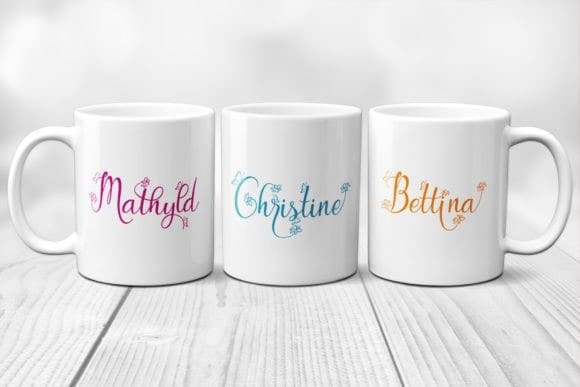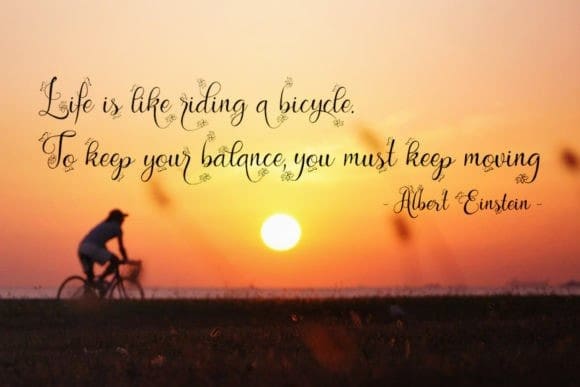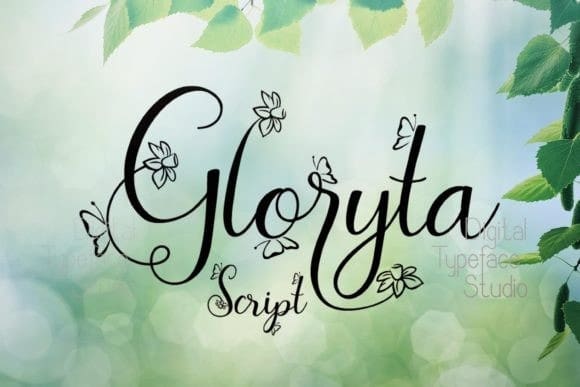
Gloryta Font
Gloryta Font is a modern, decorated handwritten font, that can be used for creative projects. Fresh and casual, this font is ideal for wedding invitations, cards, or any other design that might need a romantic, handwritten touch.